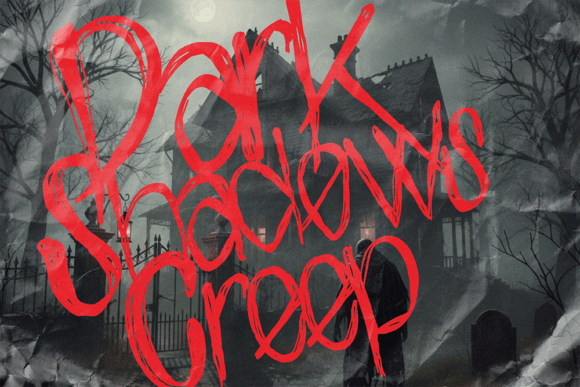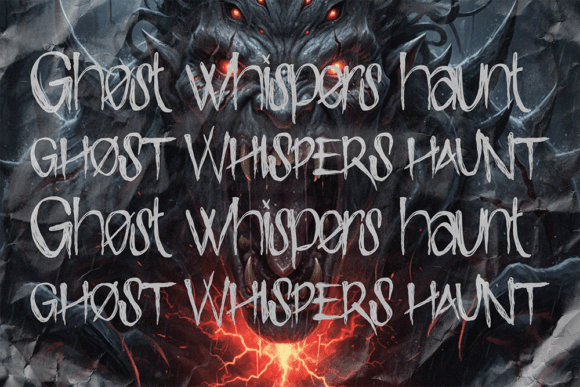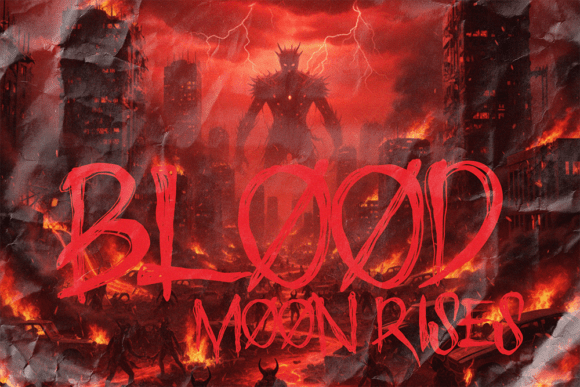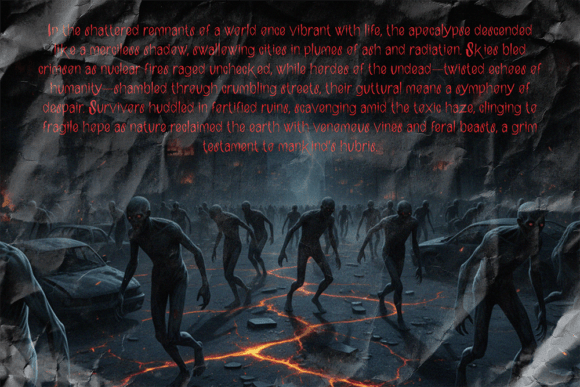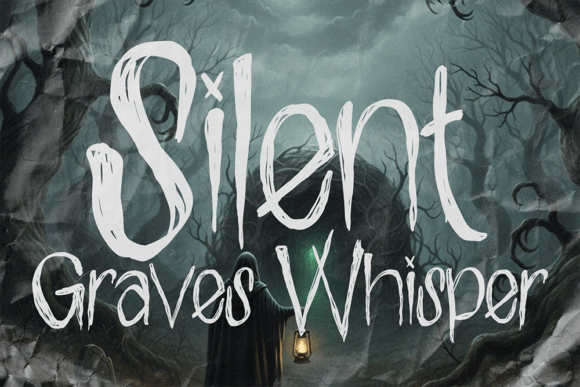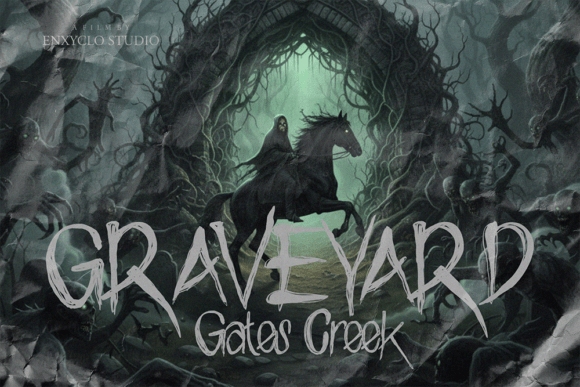
Unleash the Horror with Grave Echo Font: The Ultimate Choice for Spooky Designs
Are you looking for a font that can add a touch of eeriness and creepiness to your design work? Look no further than Grave Echo, a bold and display typeface specifically crafted to evoke the unsettling atmosphere of classic horror. This font is perfectly designed for creating spooky headlines, Halloween posters, and any creative project that aims to capture a scary and creepy vibe.
The Unique Charm of Grave Echo
Grave Echo stands out with its unique and chilling letterforms that bring an authentic horror aesthetic to your design work. Each letter is carefully crafted to convey a sense of eeriness and foreboding, making it the ultimate choice for adding frightful flair to your projects. Whether you’re designing a Halloween event, a horror movie poster, or any project that demands a touch of creepiness, Grave Echo delivers bold and impactful visuals that grab attention and set the perfect tone.
Perfect for Horror and Halloween Designs
Halloween is just around the corner, and Grave Echo is the perfect font to use for your spooky designs. From creepy posters to haunted house invitations, this font will add an extra layer of eeriness to your project. The bold and display typeface is designed to make a statement, and its unique letterforms will ensure that your design stands out from the crowd. You can use Grave Echo to create:
- Spooky posters and flyers for Halloween events
- Creepy logos and branding for horror-themed businesses
- Eerie invitations and party decorations for Halloween parties
- Haunting headlines and titles for horror movie posters and trailers
Versatility and Readability
One of the standout features of Grave Echo is its versatility and readability. Despite its bold and creepy design, the font remains easy to read, making it perfect for use in a variety of design projects. Whether you’re creating a horror movie poster or a spooky social media post, Grave Echo ensures that your message is not just seen but felt. The font’s unique blend of style and readability makes it an excellent choice for designers and crafters who want to add a touch of horror to their work.
Tips for Using Grave Echo
To get the most out of Grave Echo, here are some tips for using the font in your design projects:
- Use Grave Echo as a headline font to add a touch of horror to your design
- Experiment with different colors and textures to enhance the creepy effect
- Pair Grave Echo with other fonts to create a unique and eye-catching design
- Use Grave Echo consistently throughout your design to create a cohesive look
Why Choose Grave Echo?
So why choose Grave Echo over other fonts? Here are just a few reasons why Grave Echo stands out:
- Unique and chilling letterforms that evoke the eerie atmosphere of classic horror
- Bold and display typeface that’s perfect for creating spooky headlines and posters
- Versatile and readable, making it perfect for use in a variety of design projects
- Easy to use and customize, with a range of design possibilities
If you’re looking for a font that can add a touch of horror and creepiness to your design work, look no further than Grave Echo. With its unique and chilling letterforms, bold and display typeface, and versatility and readability, Grave Echo is the ultimate choice for designers and crafters who want to create spooky and eye-catching designs. So why wait? Download Grave Echo today and unleash the horror in your design work!